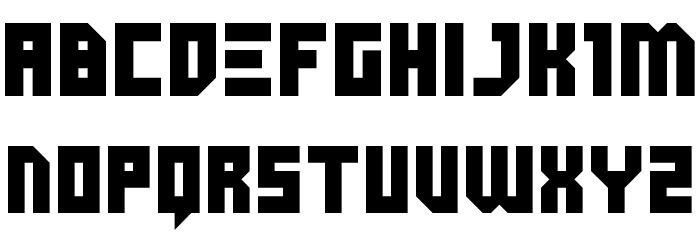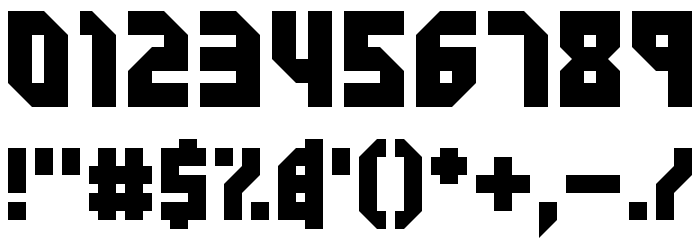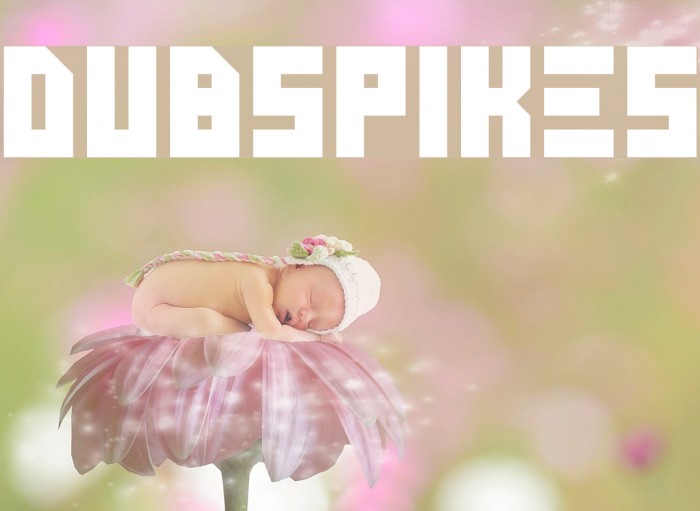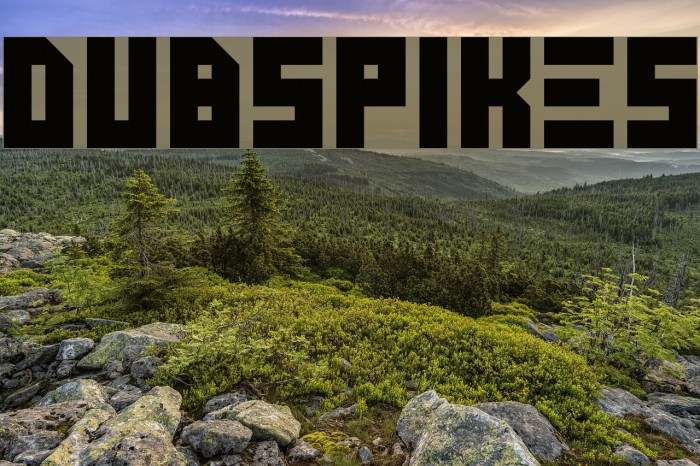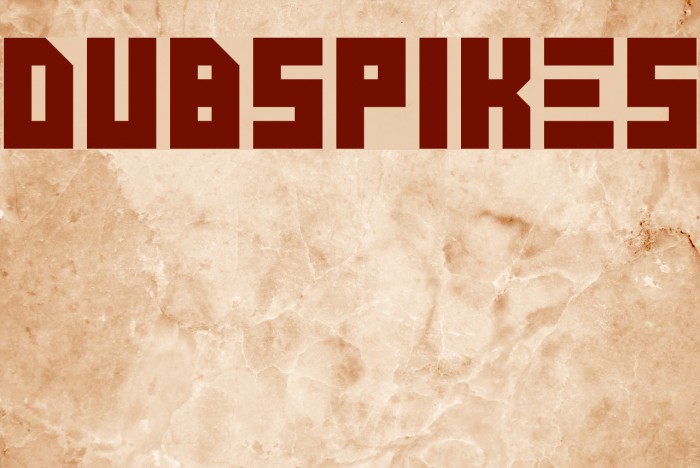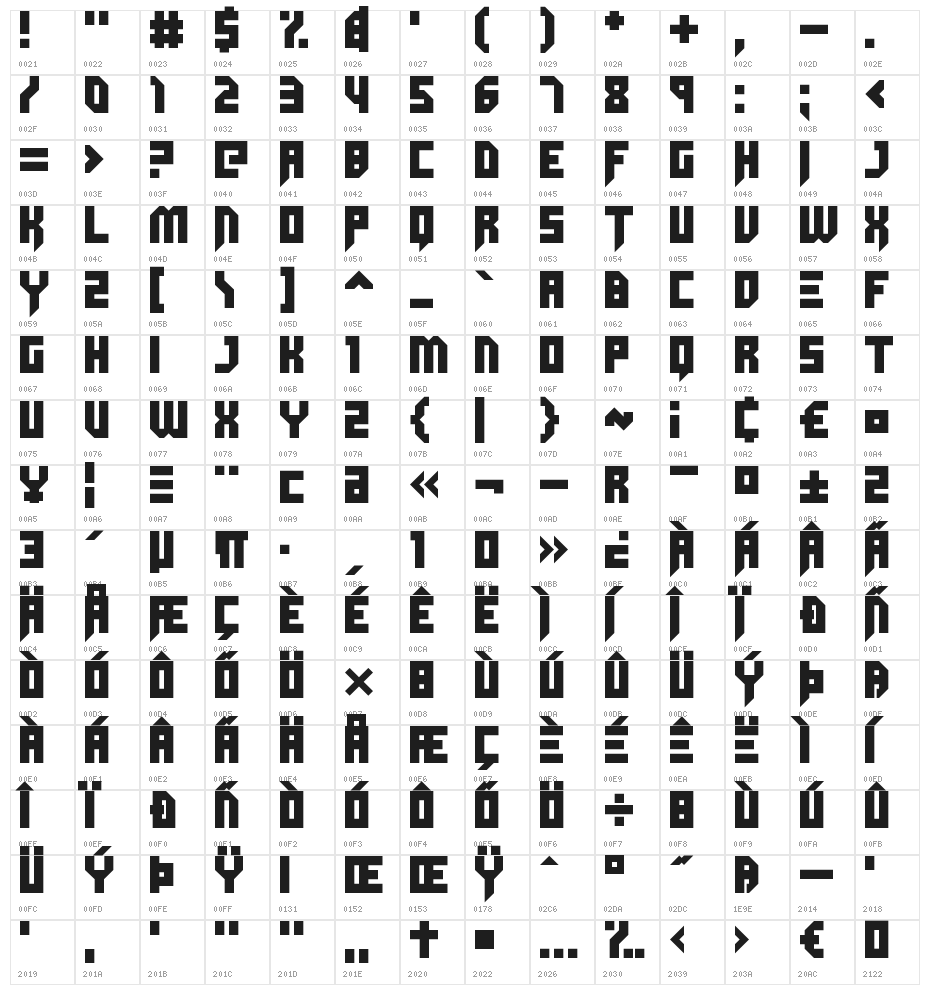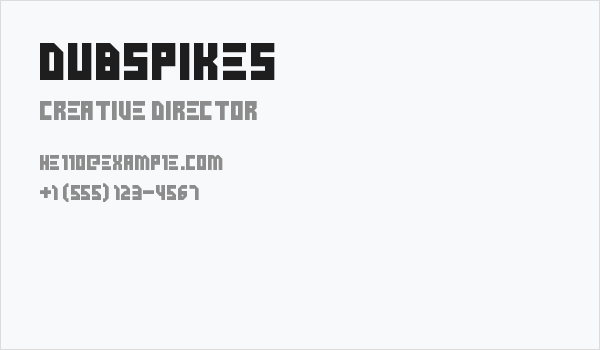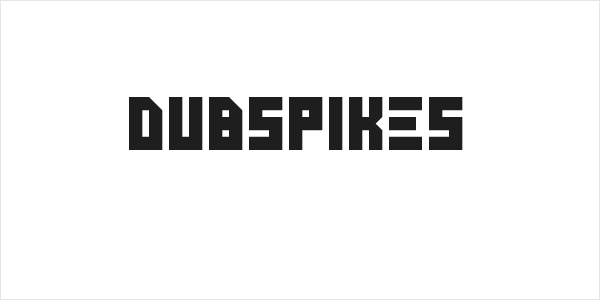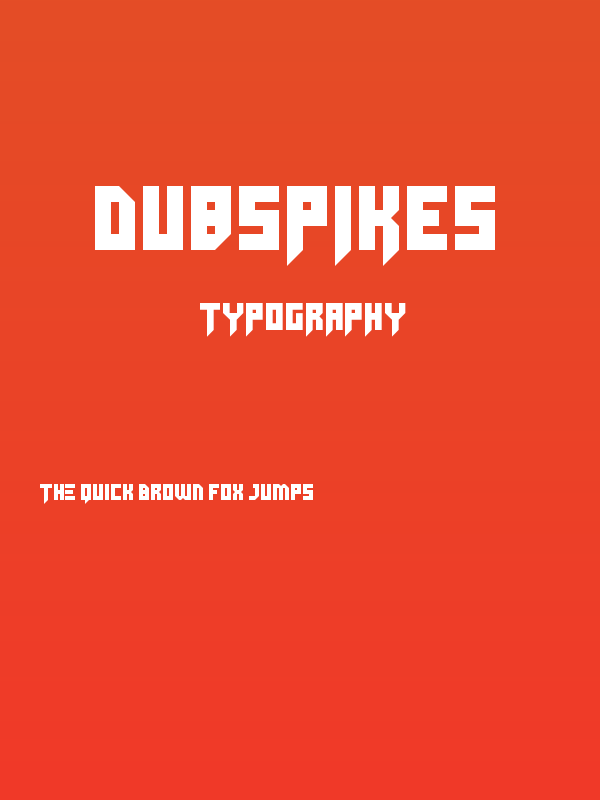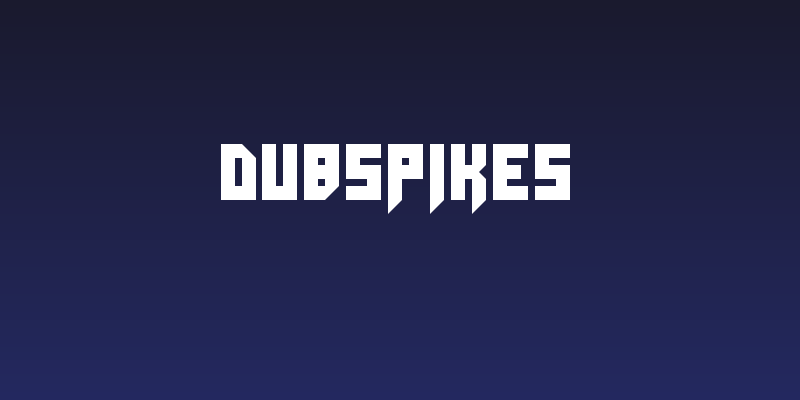
Dubspikes Font
This font features a bold, geometric design with sharp angles and a blocky appearance. Each character is constructed with a consistent thickness, creating a uniform and cohesive look. The uppercase and lowercase letters maintain a similar style, with the lowercase being slightly smaller but equally bold. The numbers and special characters follow the same angular, edgy design, making the font highly distinctive. Its strong visual impact makes it suitable for attention-grabbing designs. The font's unique style is reminiscent of futuristic or industrial themes, with a modern twist.
A bold, geometric font with sharp angles and a blocky design.
- Proposed Projects: Ideal for posters, logos, video game graphics, and any project needing a strong, modern aesthetic.